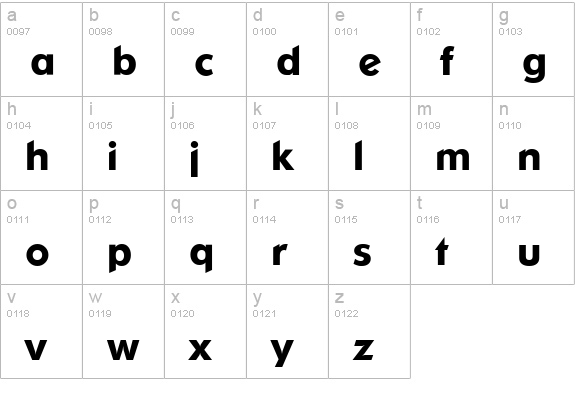
OrnitonsSerial-Bold is a strong, high-contrast variant in the OrnitonsSerial typeface family \xE2\x80\x94 well suited to headlines, attention-grabbing titles, and strong calls-to-action.
OrnitonsSerial-Bold font is a bold and eye-catching typeface that commands attention with its modern and sleek design. With its strong and distinct letterforms, this font is perfect for headlines, titles, and branding materials that require a bold statement. The sharp angles and clean lines give OrnitonsSerial-Bold a contemporary and edgy look that will make your text stand out. Best of all, OrnitonsSerial-Bold font is available for free download at FontsMarket.com. This means you can easily access this striking typeface for your design projects without any cost. Whether you're creating posters, logos, or website headers, OrnitonsSerial-Bold font is a versatile choice that will add a touch of sophistication and style to your work. Download it now and elevate your designs with this stunning font.